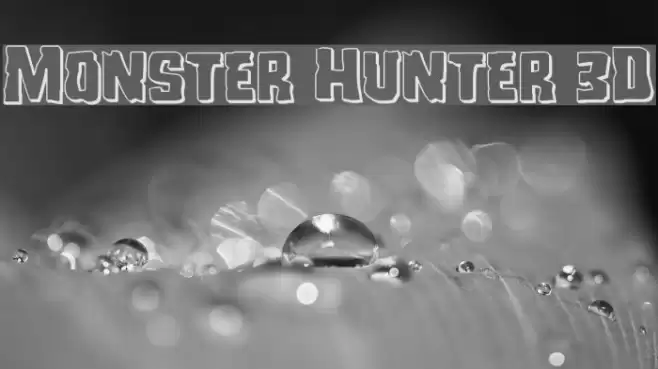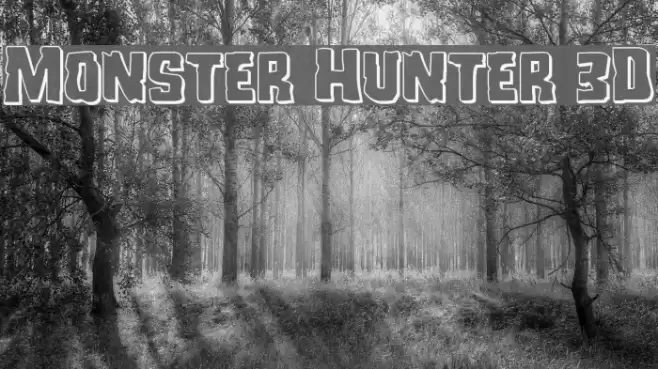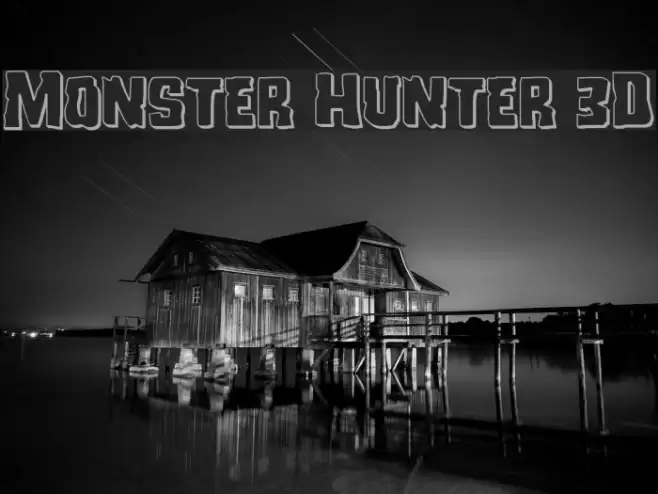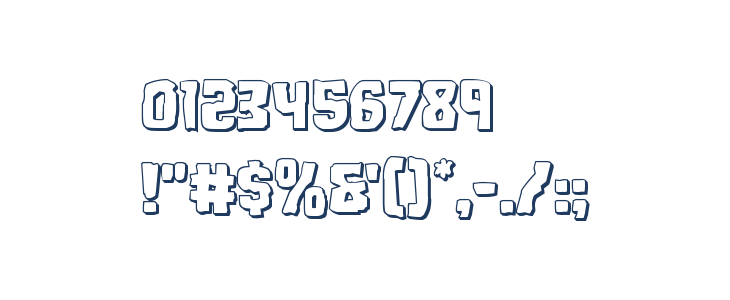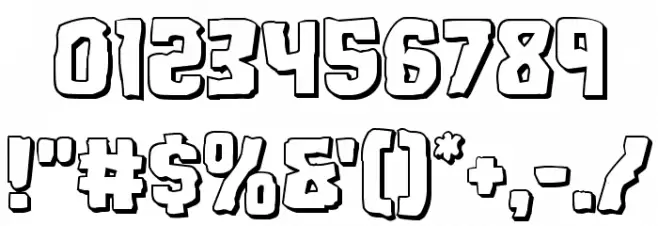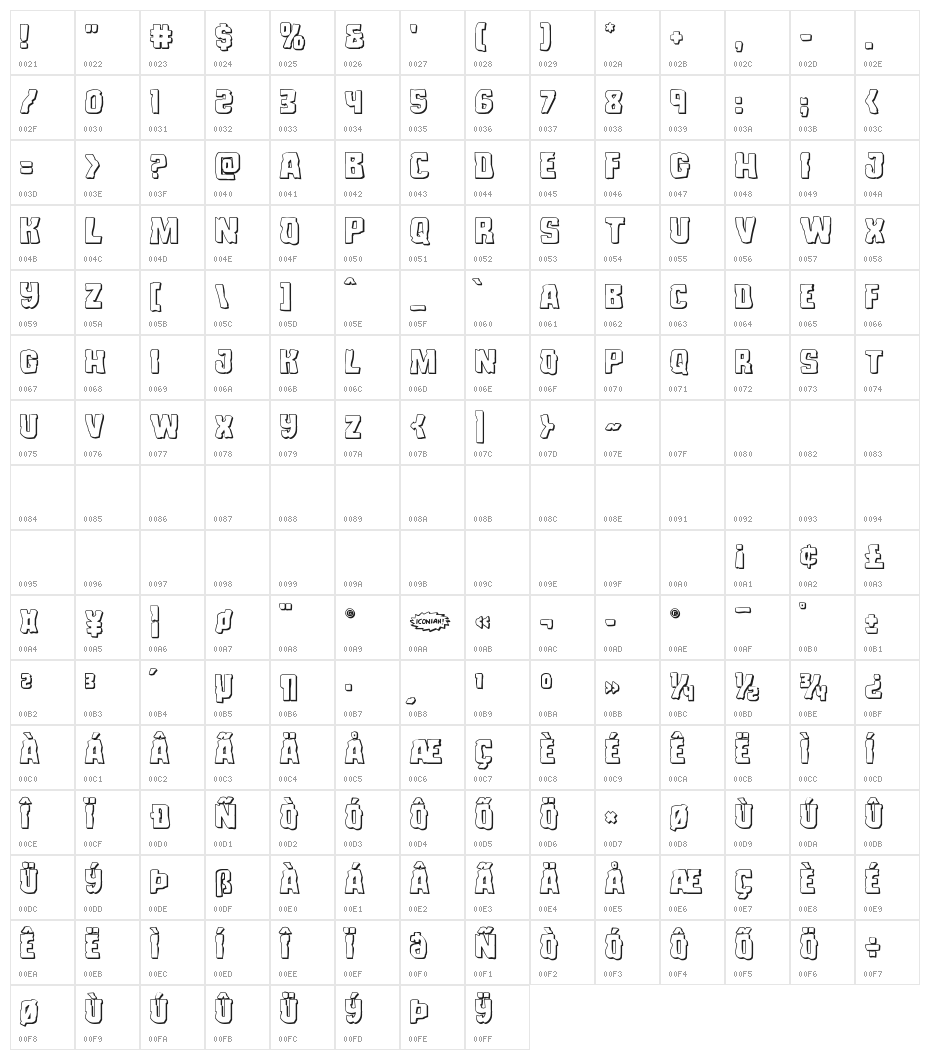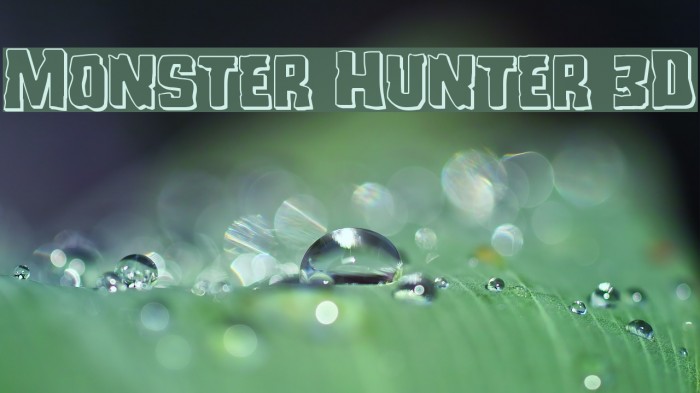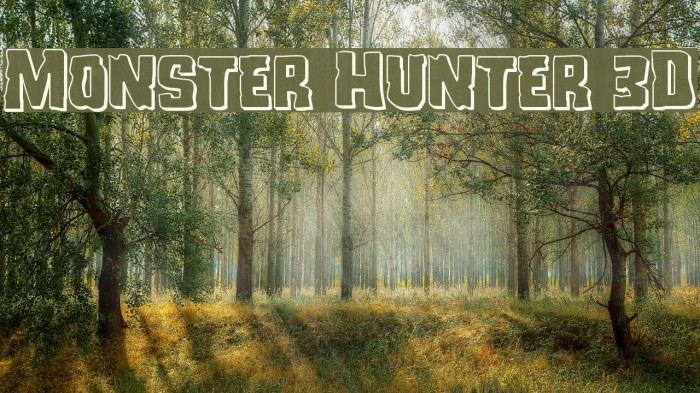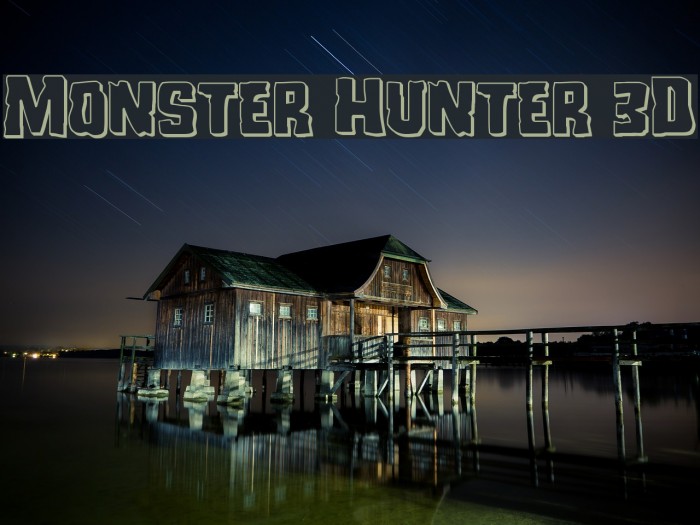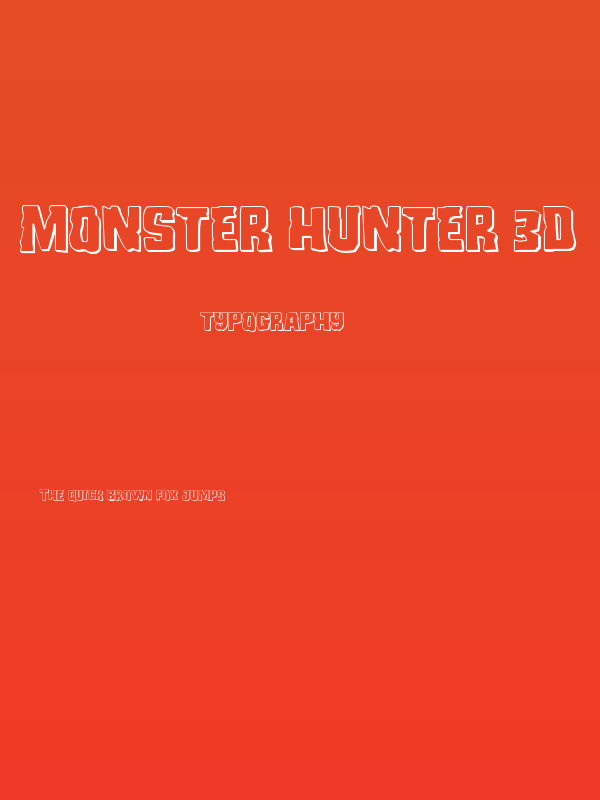
Monster Hunter 3D Font
Monster Hunter 3D Description
This font features a bold, three-dimensional appearance with a playful and adventurous style. The letters are outlined with a thick black border, giving them a strong presence and a sense of depth. The characters have a blocky, geometric structure, which adds to their robust and dynamic look. The font is well-suited for creating eye-catching headlines or titles that need to stand out. Its unique 3D effect makes it ideal for projects that require a sense of excitement or energy. The numbers and special characters maintain the same bold and outlined style, ensuring consistency across all elements.
A bold, 3D font with a playful and adventurous style, featuring thick outlines from Uncategorized fonts.
- Proposed Projects: Ideal for video game titles, posters, comic book covers, and any project needing a bold, adventurous look.